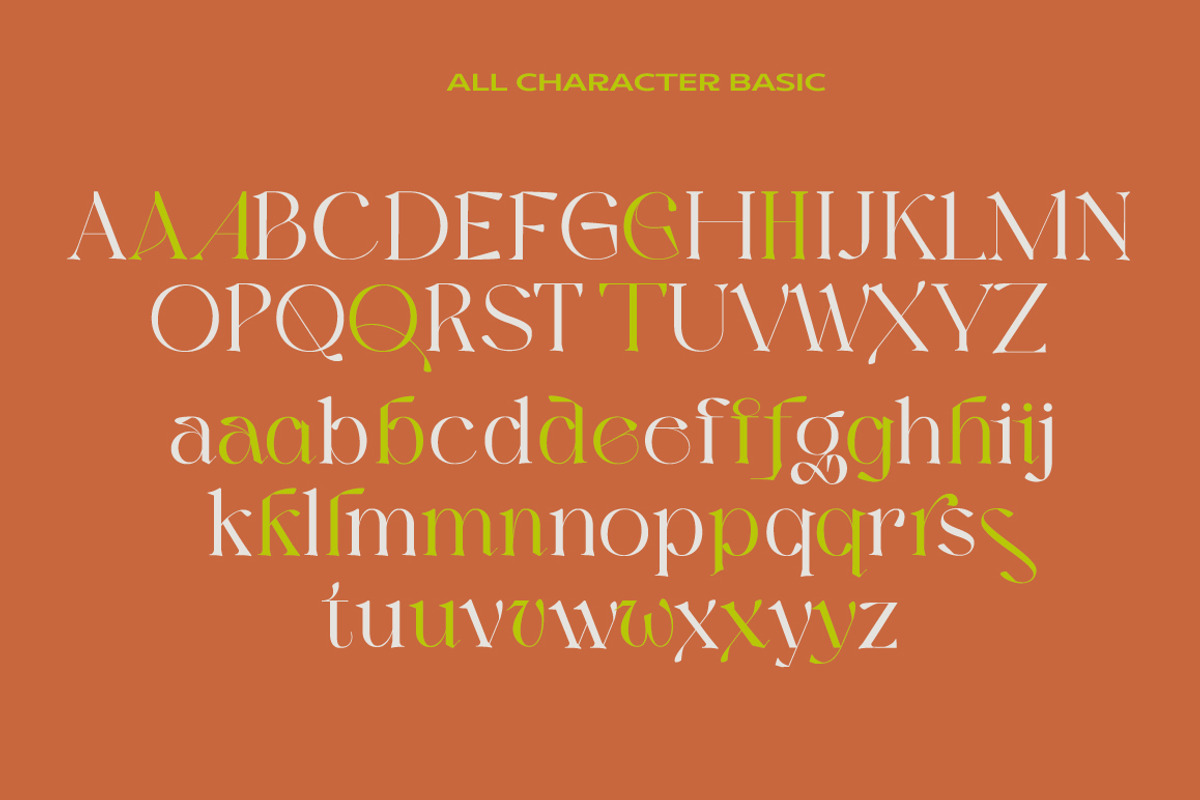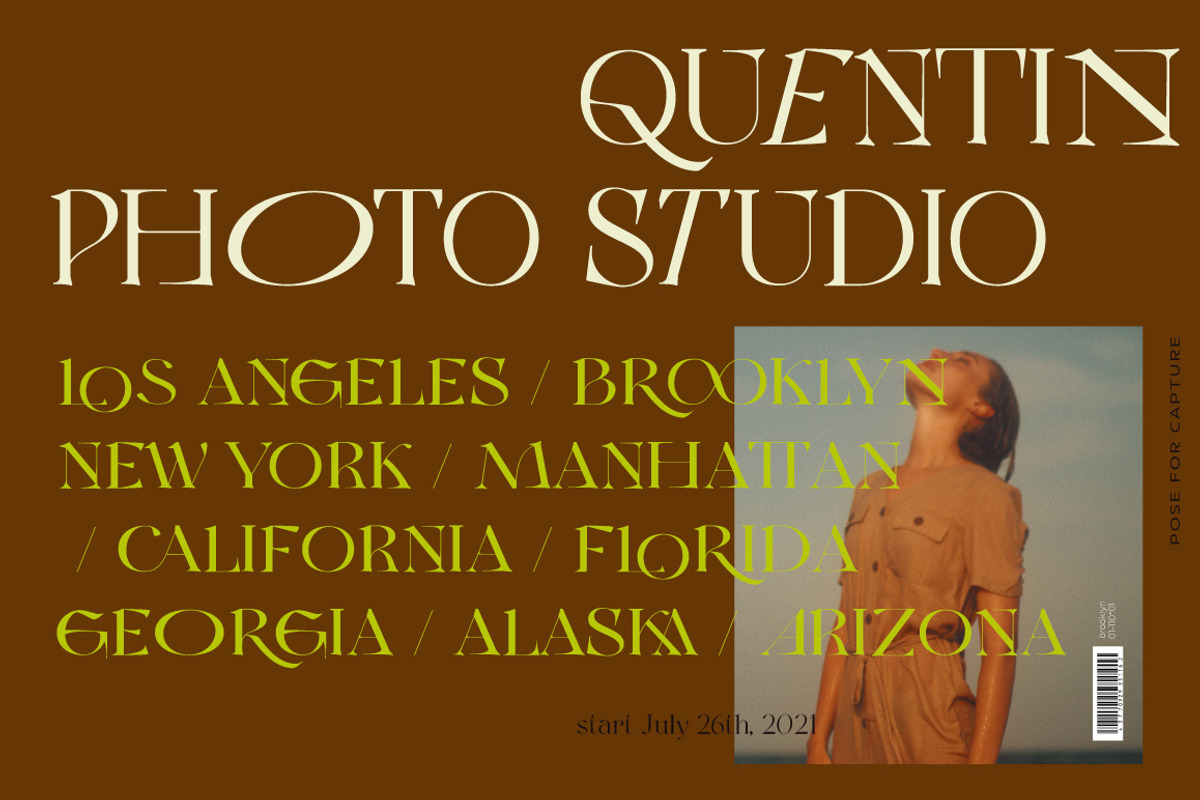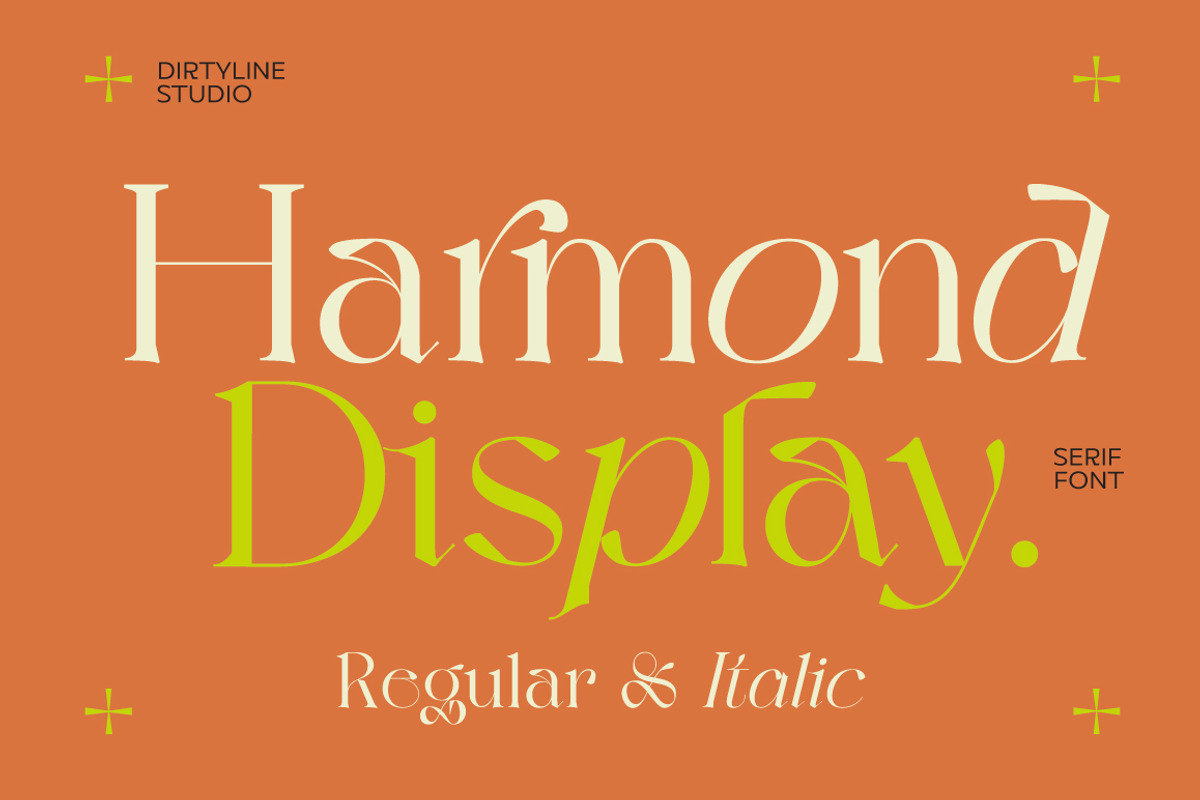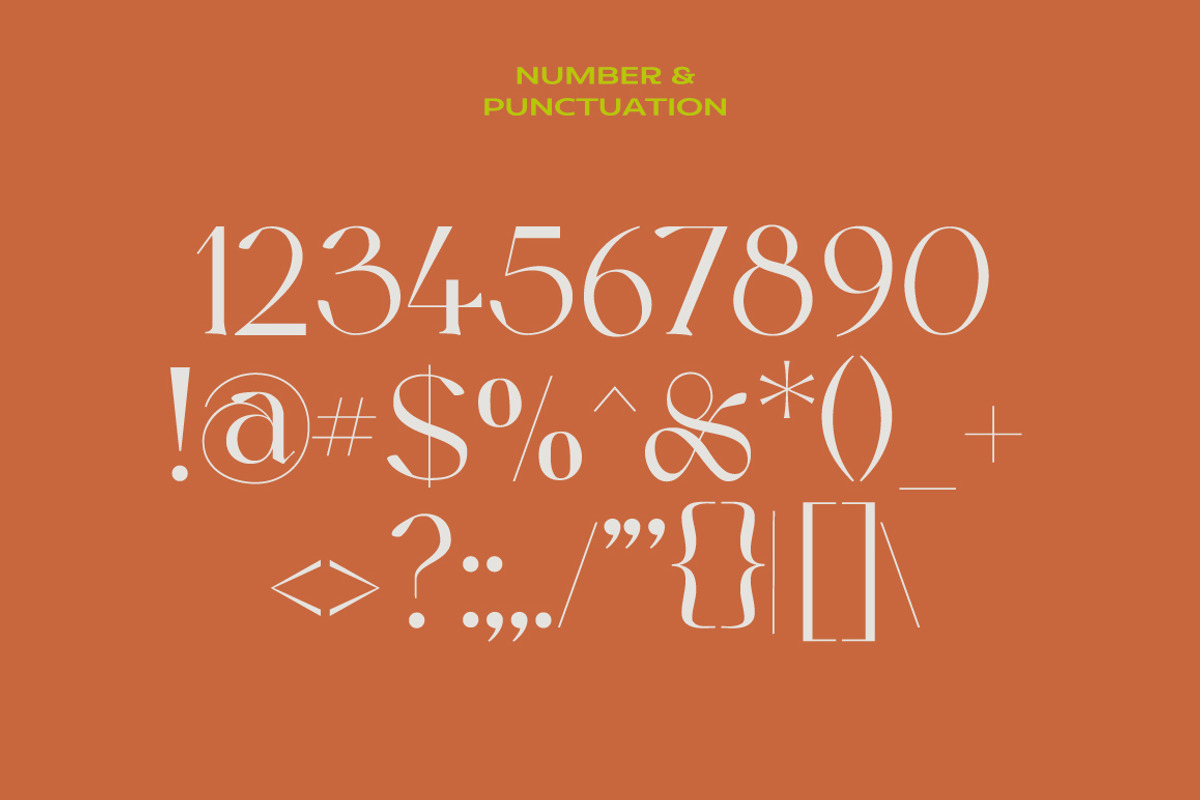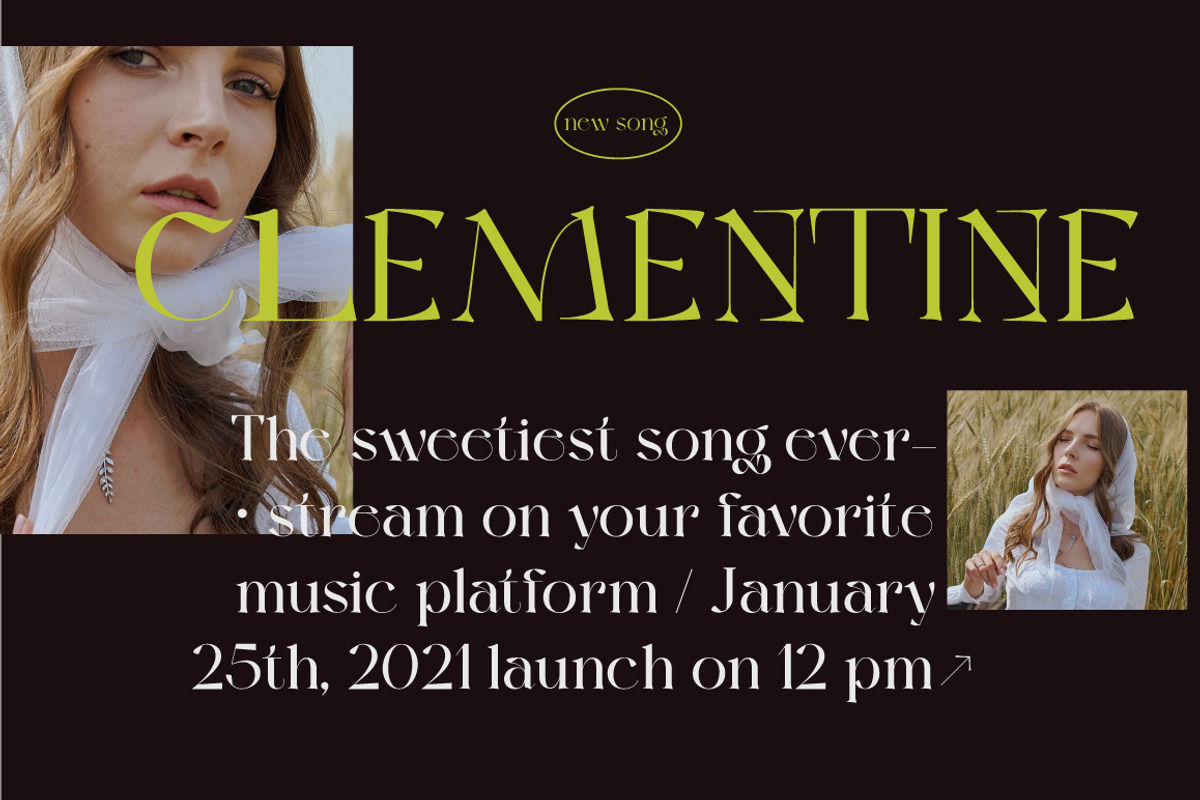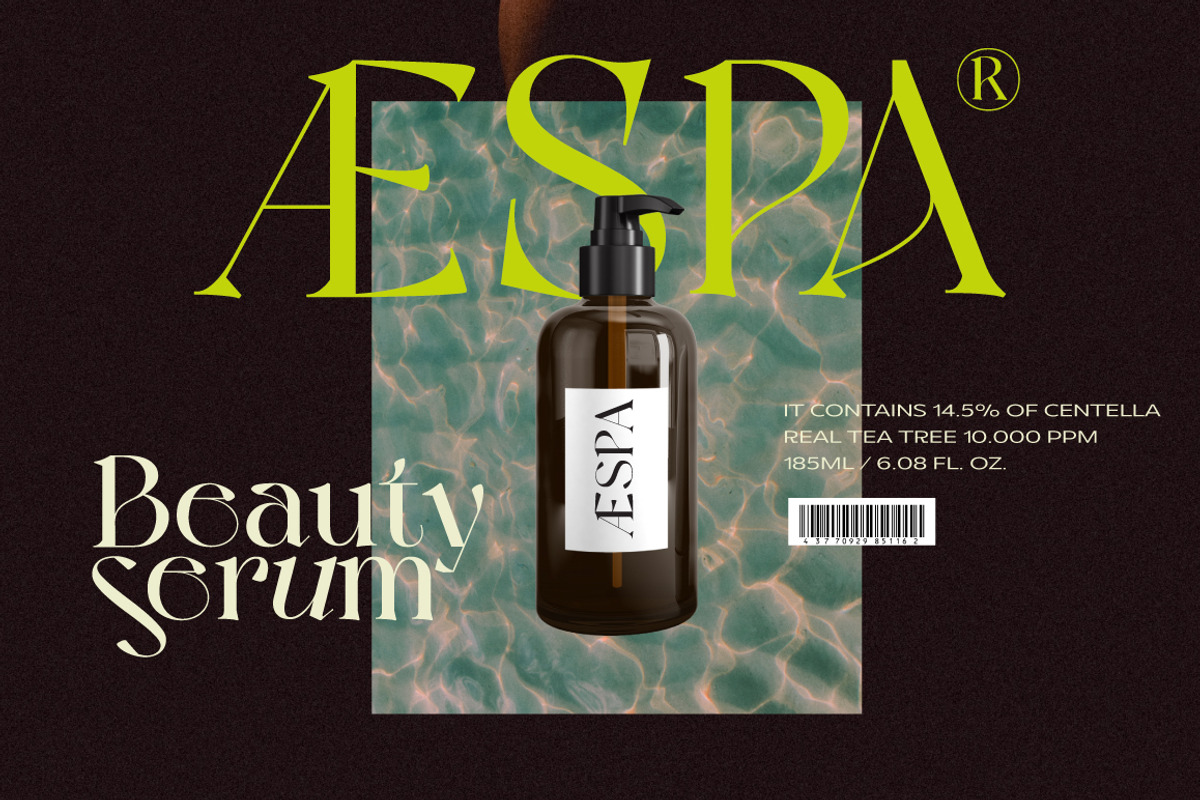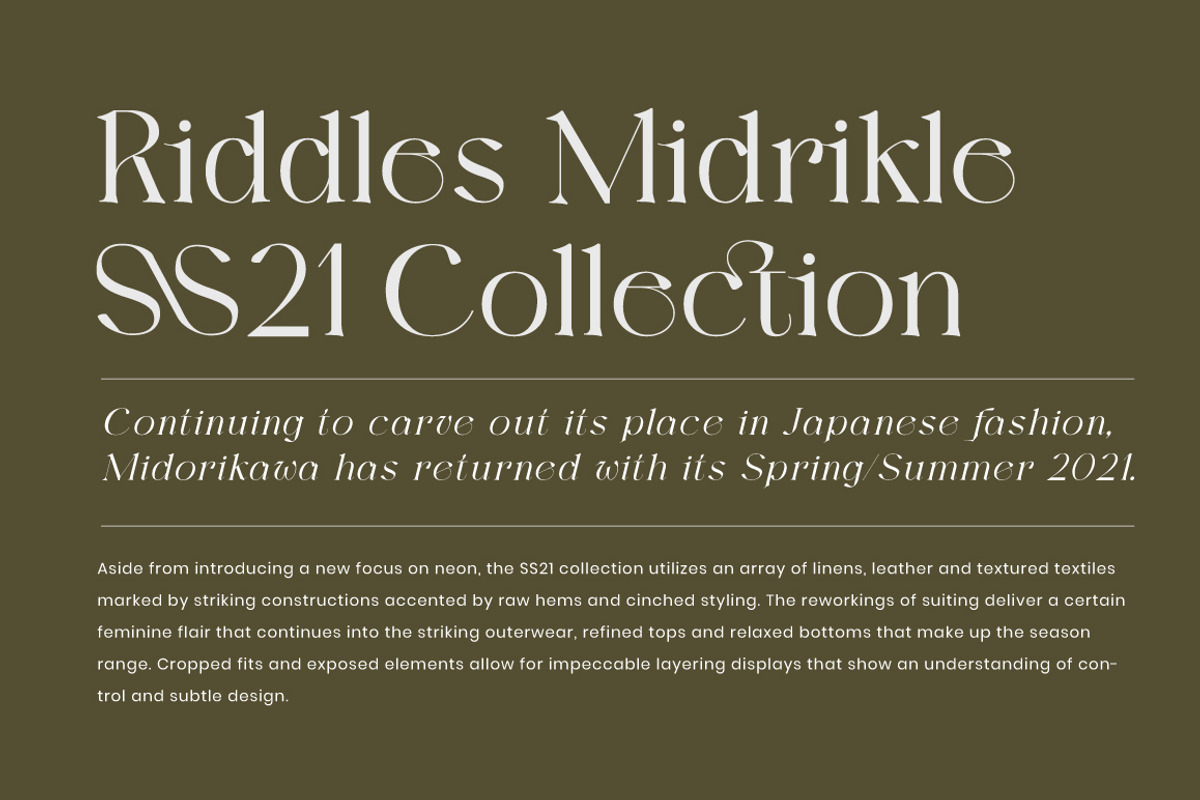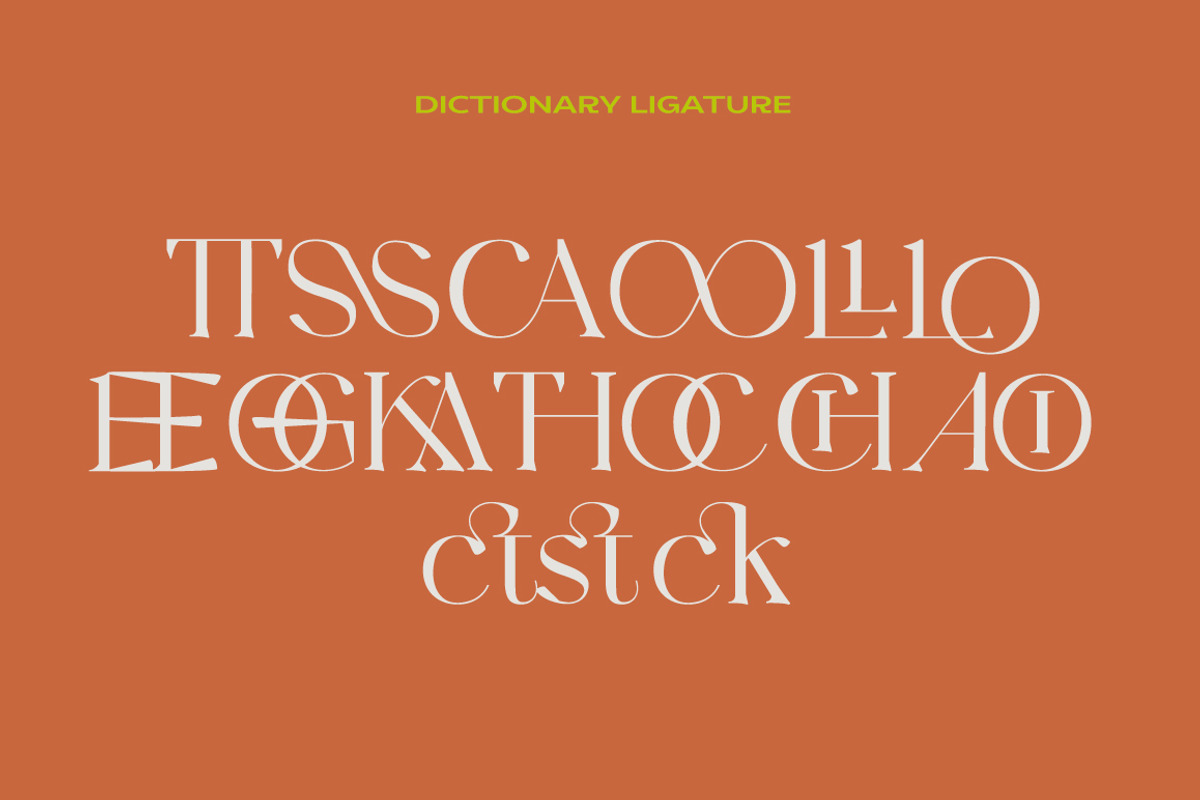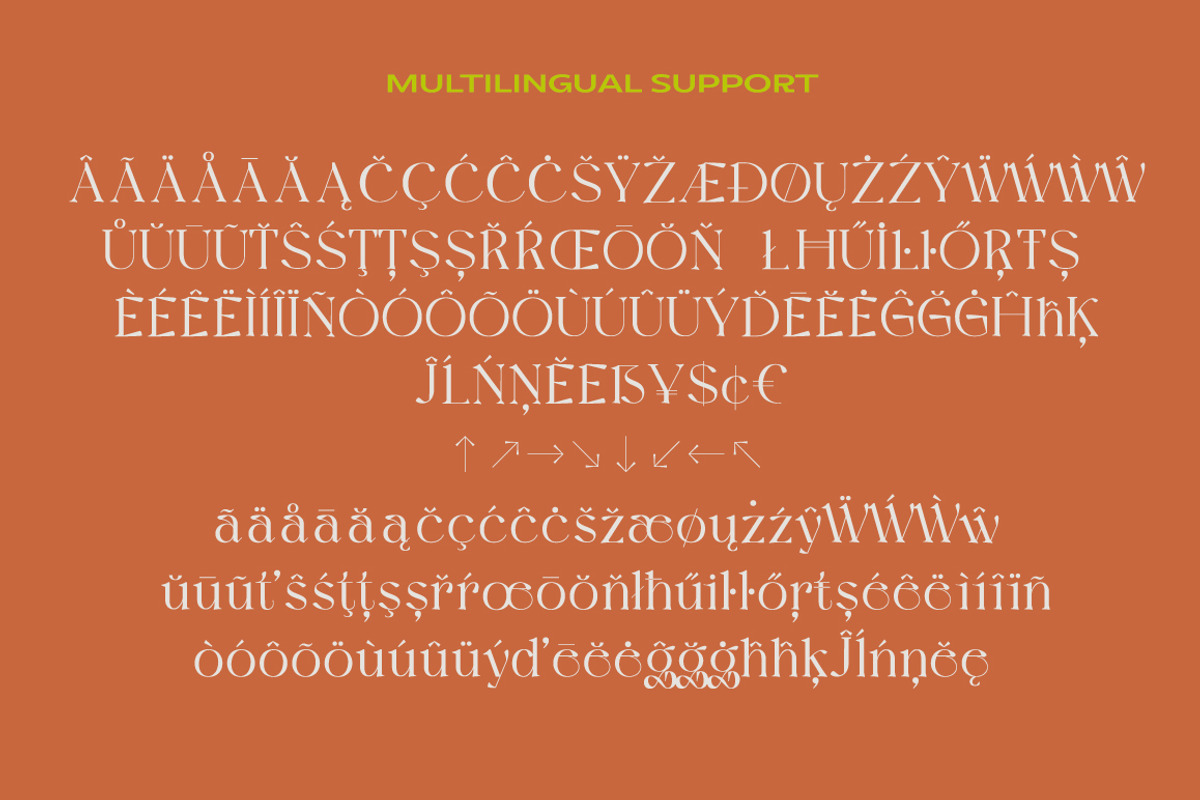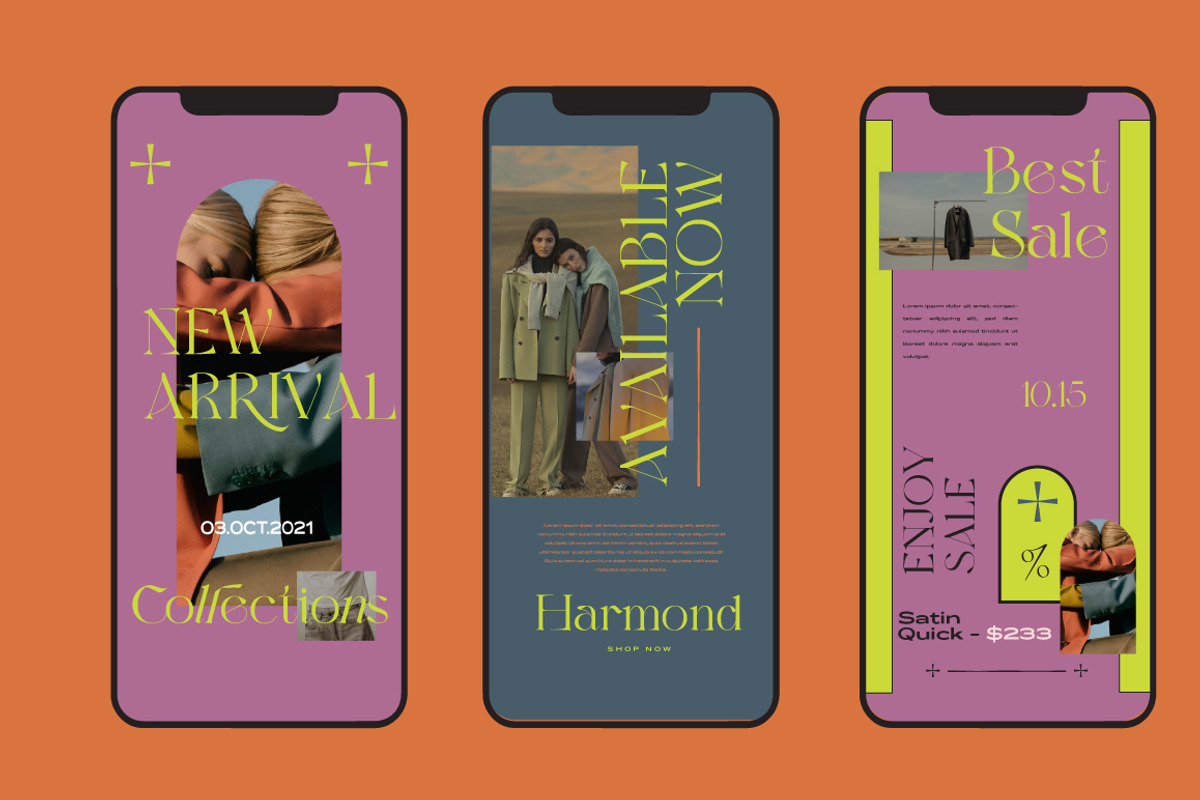
Harmond - New Trendy Serif
Harmond a new fresh & modern serif with a strong style, a dancing baseline! So beautiful on invitation like greeting cards, branding materials, business cards, quotes, posters, and more!
Harmond Display Typeface is the part of a strong and modern display family. This typeface both impressive at display sizes and easily readable in text size, while the sharp shapes of the triangular serifs and the distinctive letter shapes show their strength in logo design and impressive editorial use.
Harmond come with elegant style, strength and contrasts, with features an extended latin character set of 470 glyphs covering over 88 languages.Harmond is ready to be like a top model on the design catwalk, making your projects looking classic but contemporary, finely tuned but assertive, and elegant as the best luxury fashion.